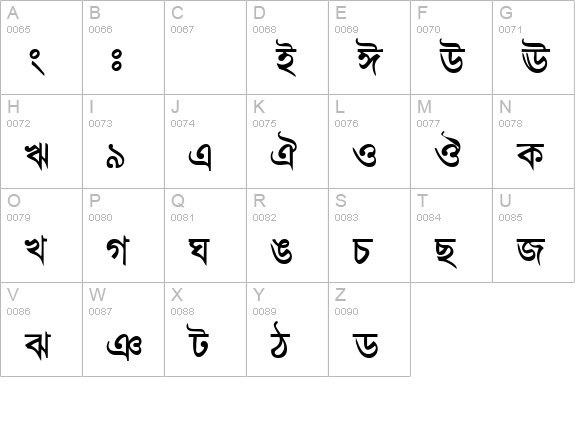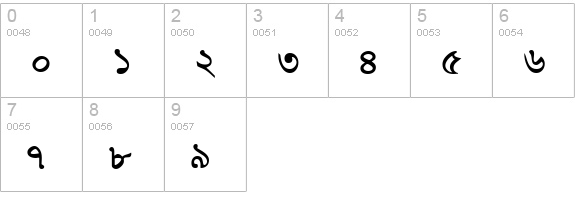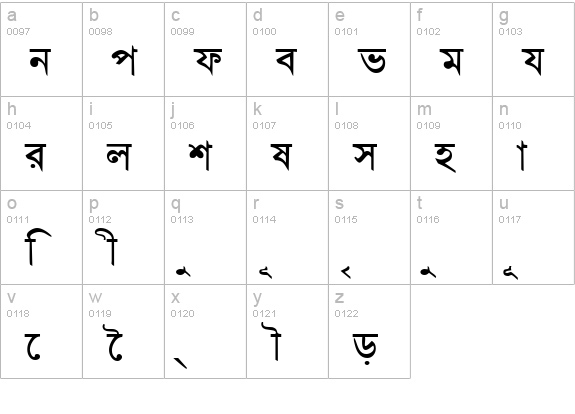
BengaliDhakaSSK Bold is a strong, high-contrast variant in the BengaliDhakaSSK typeface family \xE2\x80\x94 well suited to headlines, attention-grabbing titles, and strong calls-to-action.
BengaliDhakaSSK Bold font is a striking and bold typeface that exudes elegance and sophistication. Its strong and well-defined characters make it perfect for headlines, titles, and other display purposes. This font is freely available to download at FontsMarket.com, allowing you to add a touch of modernity and style to your designs without any cost. With BengaliDhakaSSK Bold, you can create eye-catching graphics and promotional materials that will truly stand out. Elevate your projects with this versatile and visually appealing font that is both impactful and easily accessible.